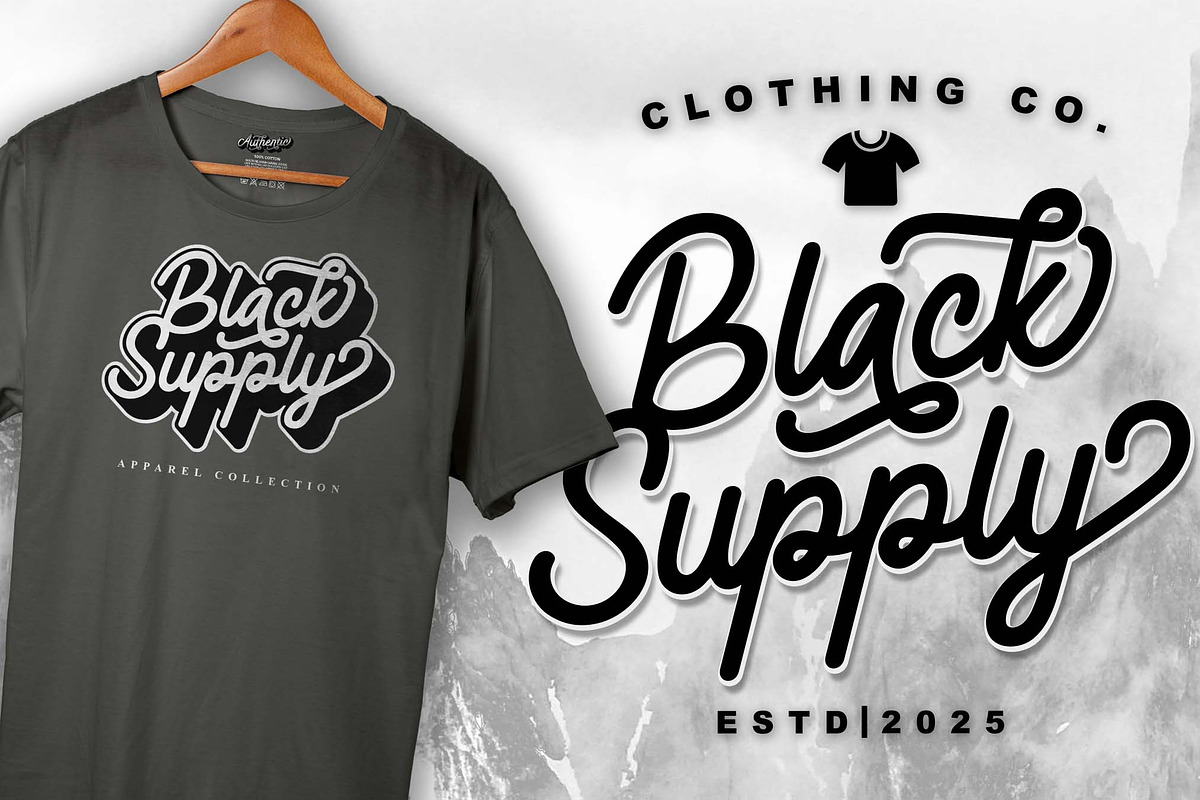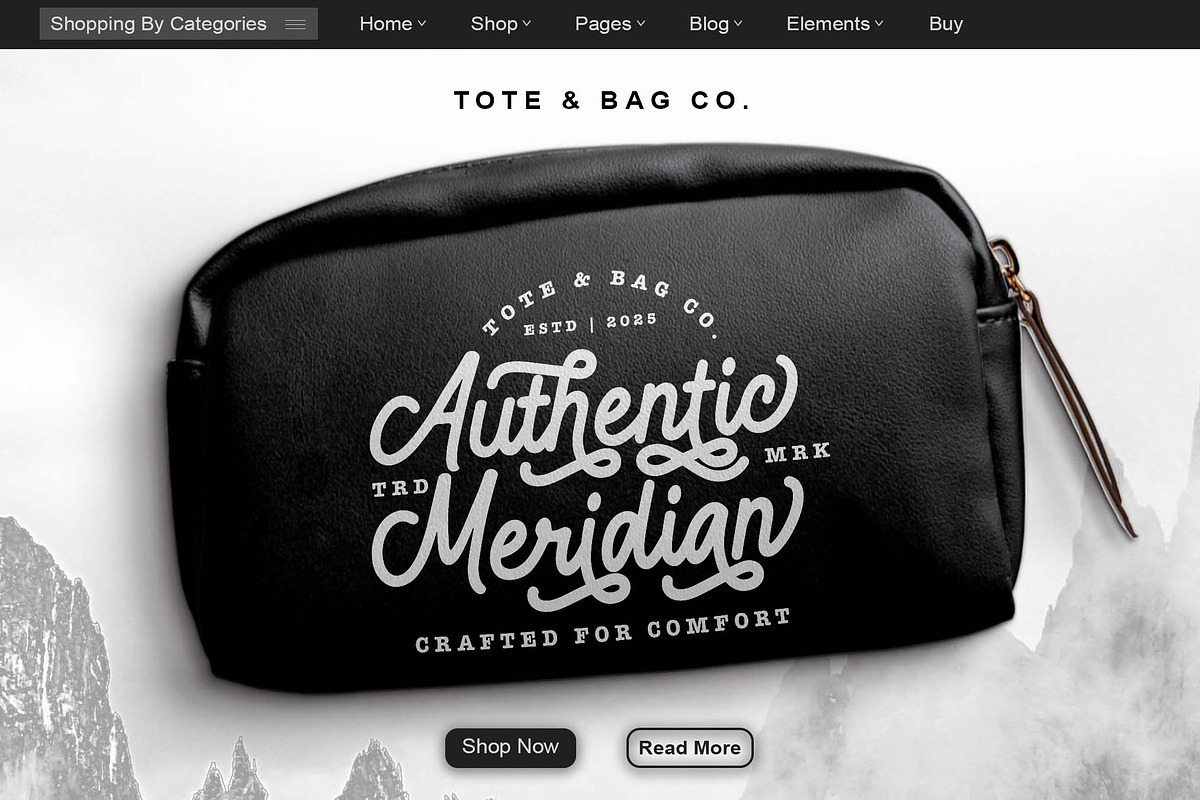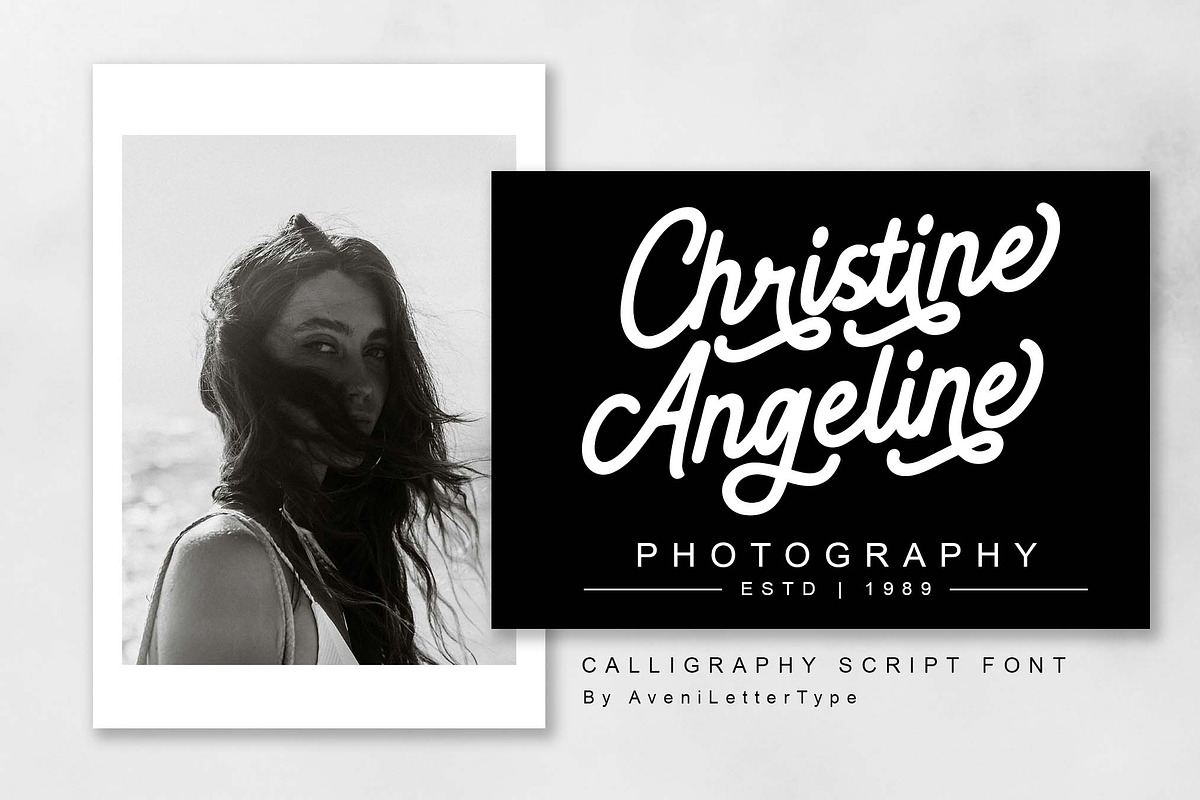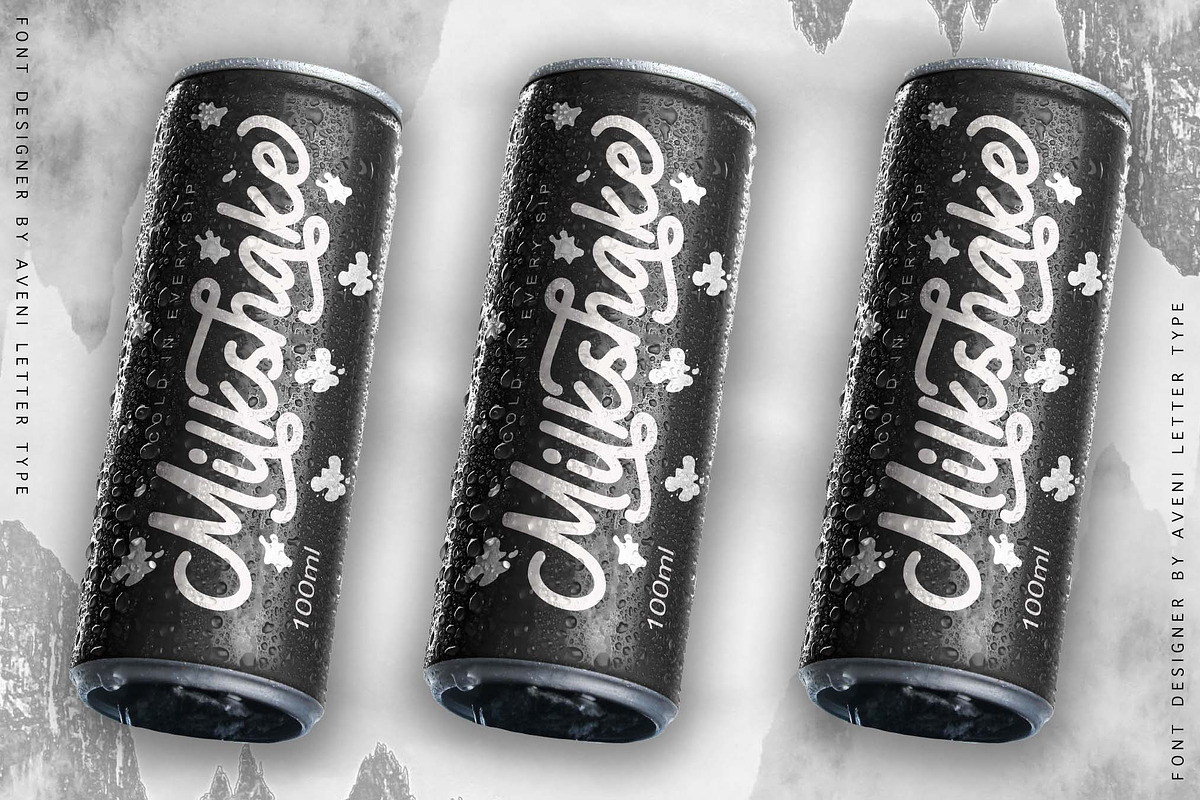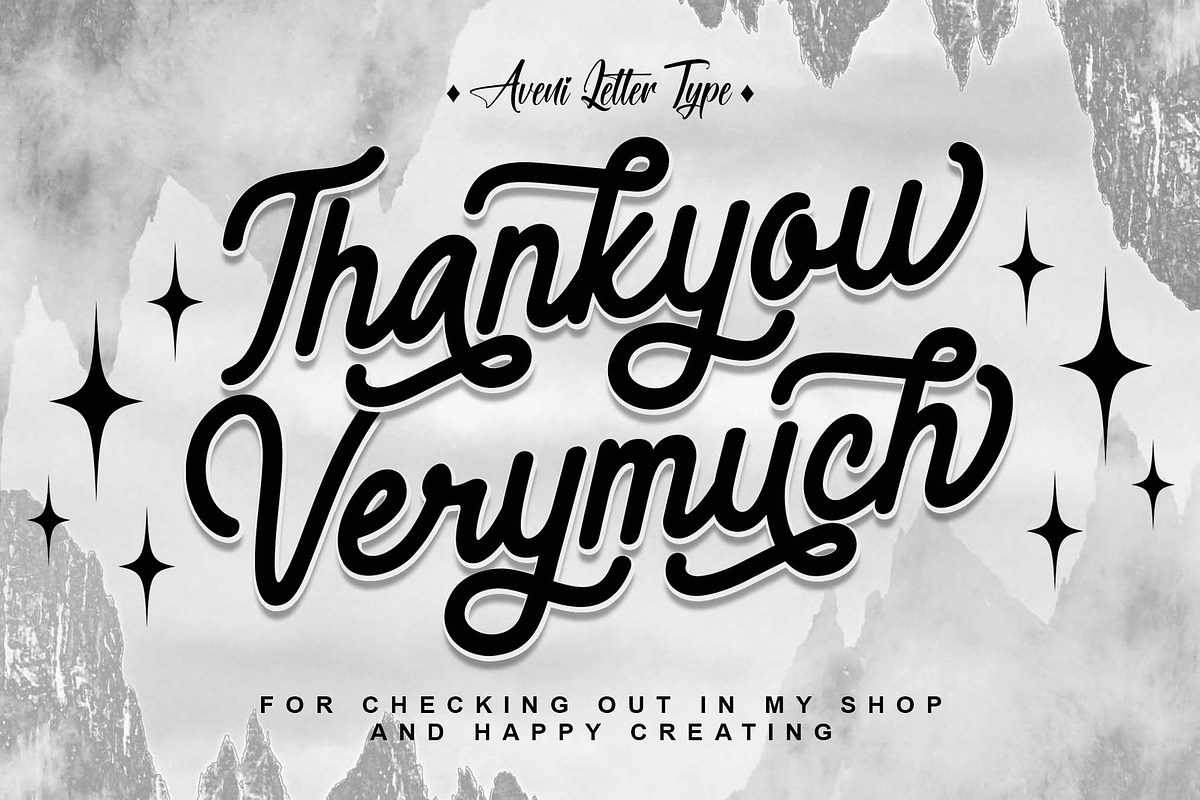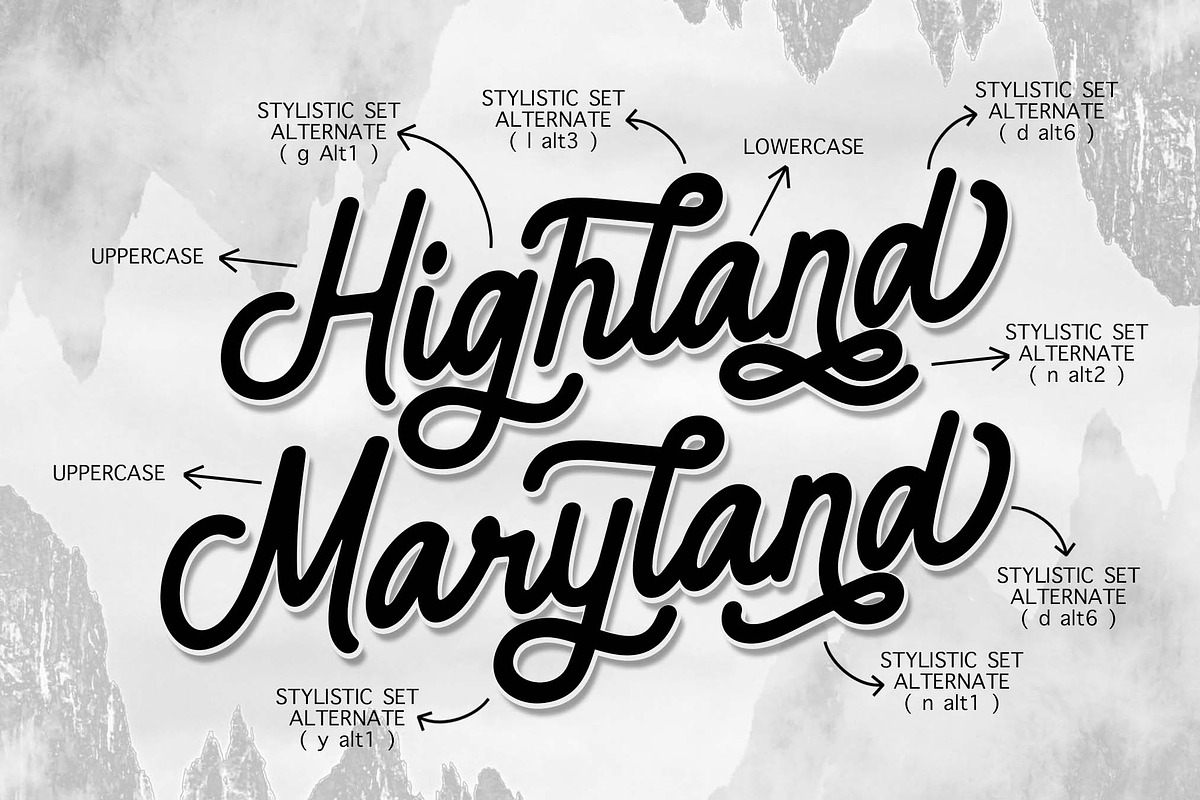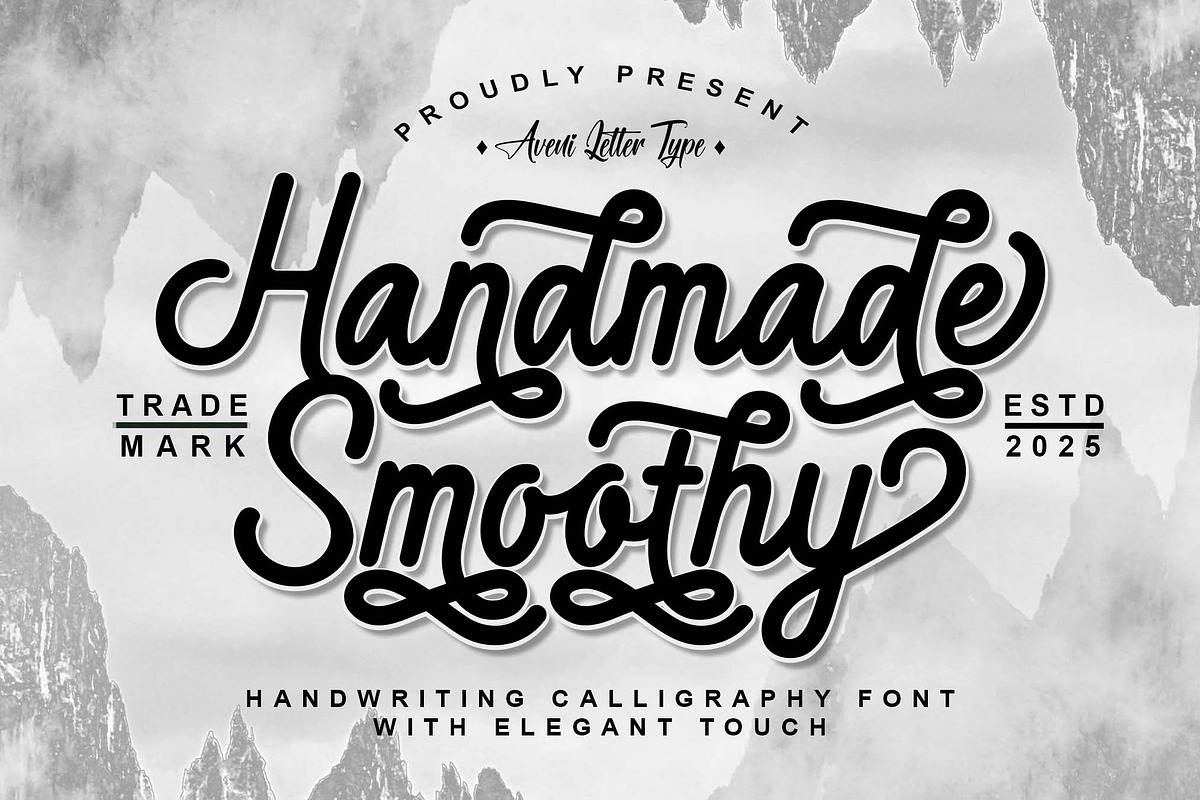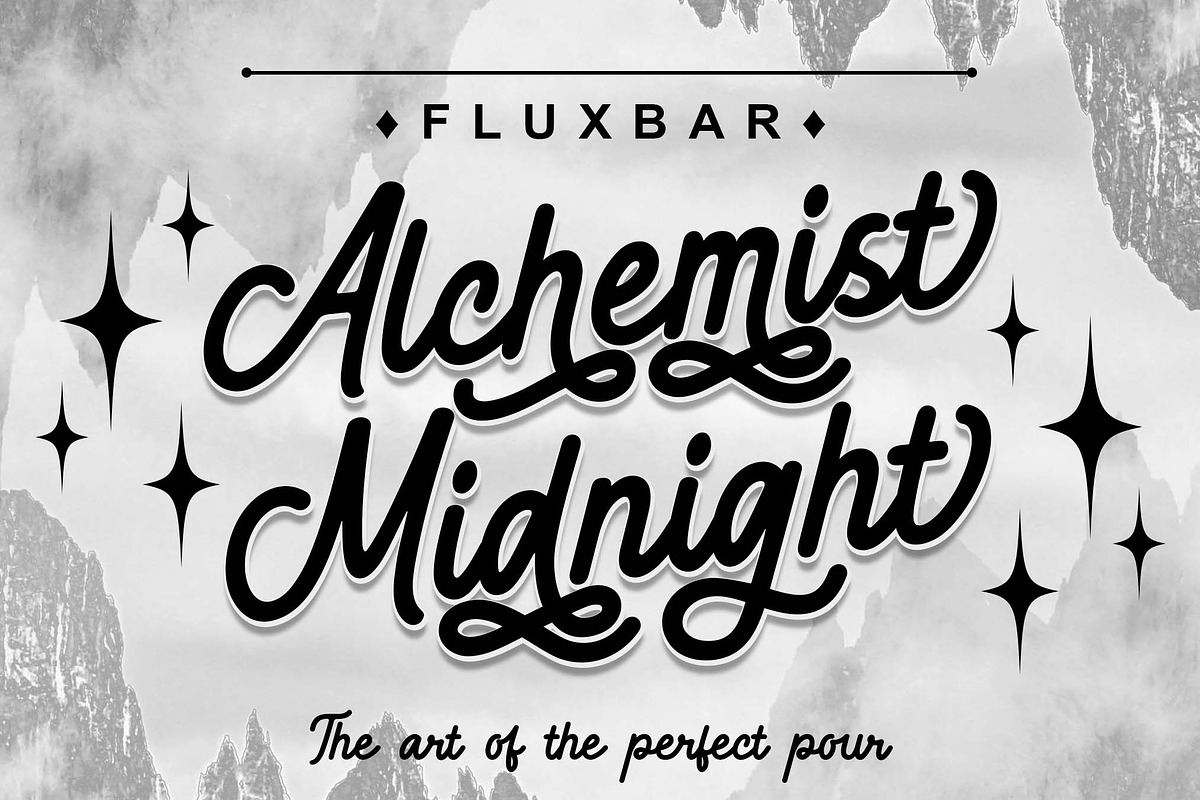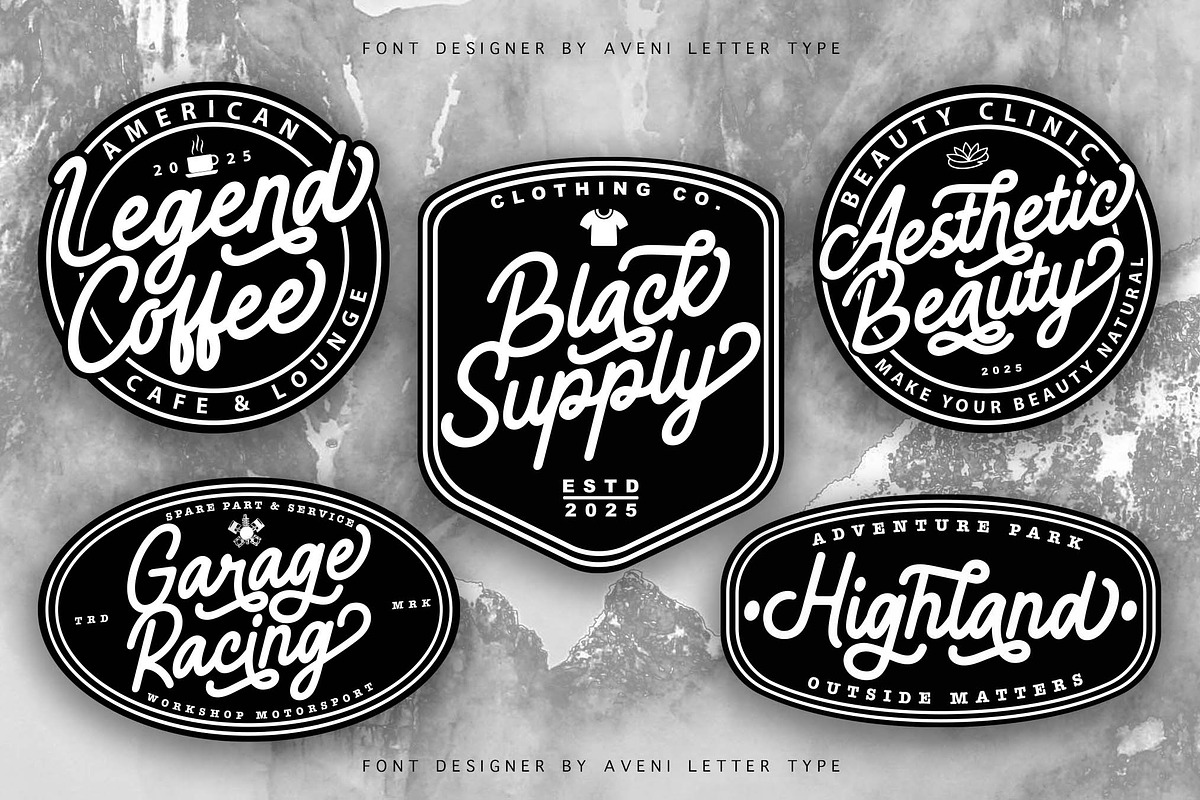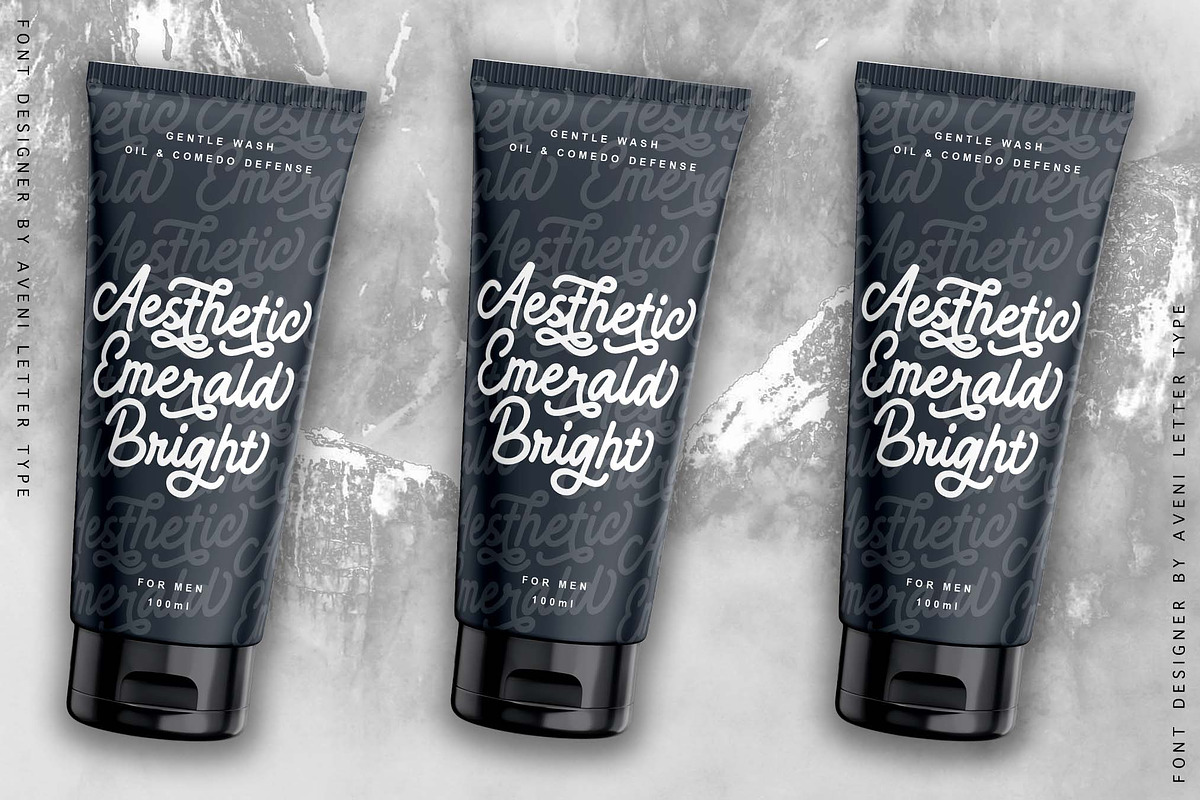
Handmade Smoothy | Handwritten Font
Hello, ladies and gentlemen, let me introduce the Handmade Smoothy font. This font is crafted in a handwritten calligraphy style, adding a touch of luxury and elegance. The Handmade Smoothy font has undergone a very neat kerning process, is equipped with ligatures, and several easy-to-use alternates for any project you're working on.
Of course, the Handmade Smoothy font is very Instagrammable and looks great in a variety of projects. This font can be used for creative purposes such as company branding, logos, and product branding, whether it's clothing/hoodies, company names, store names, product branding, and more.
Handmade Smoothy Feature :
- Ligature and Multilingual
- Alternates (PUA Encoded)